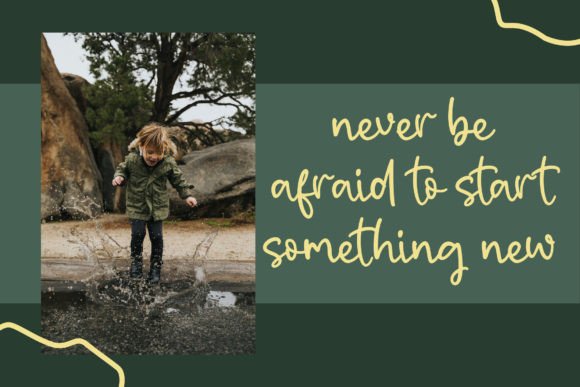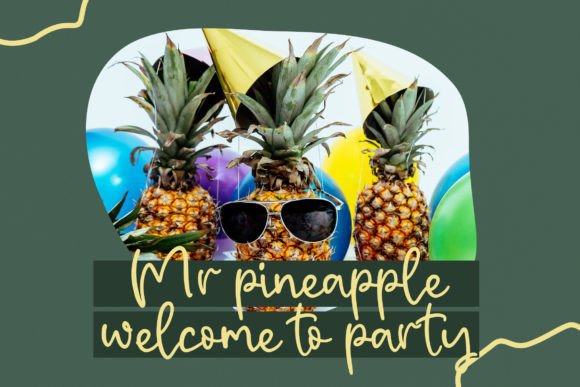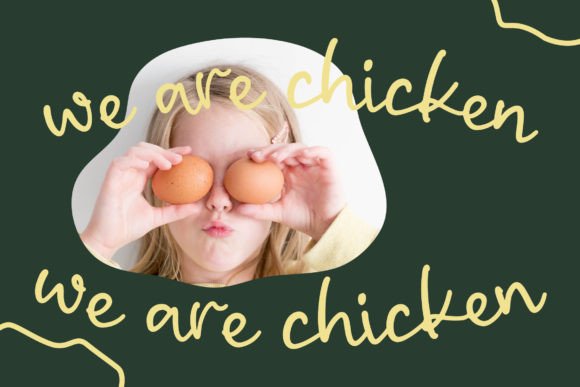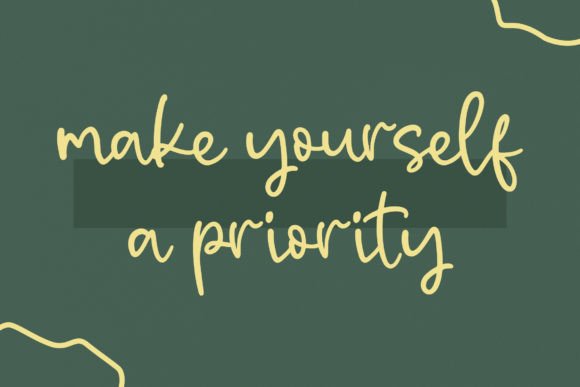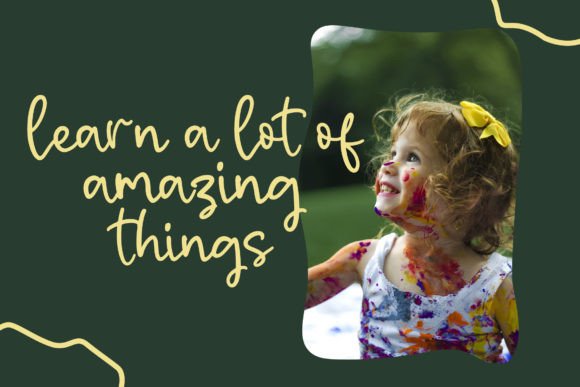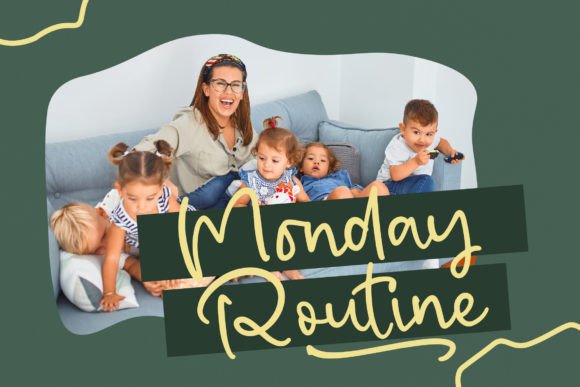
Introducing Disckey Font: The Perfect Handwritten Script for Your Creative Projects
Are you a designer or crafter looking for a beautiful and versatile handwritten font to elevate your projects? Look no further than Disckey Font! This stunning script font is suitable for a wide range of applications, from logos and branding to homeware designs, product packaging, and more.
What is Disckey Font?
Disckey Font is a carefully crafted handwritten script font that exudes elegance and sophistication. Its unique and flowing letterforms make it perfect for adding a personal touch to any project. Whether you’re working on a logo, invitation card, or product packaging, Disckey Font is sure to impress.
Features of Disckey Font
- Handwritten script: Disckey Font features a beautiful, handwritten script that adds a personal touch to any project.
- Versatile: This font is suitable for a wide range of applications, from logos and branding to homeware designs, product packaging, and more.
- Elegant and sophisticated: Disckey Font’s unique and flowing letterforms make it perfect for projects that require a touch of elegance and sophistication.
- Easy to read: Despite its ornate appearance, Disckey Font is easy to read, making it perfect for use in quotes, posters, and other text-based projects.
Use Cases for Disckey Font
Disckey Font is perfect for a wide range of creative projects, including:
- Logos and branding: Create a lasting impression with a custom logo or branding project featuring Disckey Font.
- Homeware designs: Add a touch of elegance to your homeware designs, such as ceramics, textiles, and more.
- Product packaging: Make your product packaging stand out with Disckey Font’s unique and flowing letterforms.
- Mugs and quotes: Create inspiring quotes or fun designs for mugs and other ceramics.
- Posters and shopping bags: Use Disckey Font to create eye-catching posters and shopping bags that showcase your brand’s personality.
- T-shirts and apparel: Create custom apparel featuring Disckey Font’s beautiful script.
- Book covers and name cards: Add a touch of sophistication to your book covers and name cards with Disckey Font.
- Invitation cards and greeting cards: Create beautiful and elegant invitation cards and greeting cards featuring Disckey Font.
- Labels and photography: Use Disckey Font to create custom labels and watermarks for your photography projects.
Why Choose Disckey Font?
With so many fonts to choose from, why should you choose Disckey Font for your creative projects? Here are just a few reasons:
- Unique and distinctive: Disckey Font’s unique and flowing letterforms make it stand out from more traditional fonts.
- Elegant and sophisticated: This font exudes elegance and sophistication, making it perfect for projects that require a touch of refinement.
- Versatile: Disckey Font is suitable for a wide range of applications, making it a great addition to any designer’s toolkit.
In conclusion, Disckey Font is a beautiful and versatile handwritten script font that is perfect for a wide range of creative projects. Its unique and flowing letterforms make it stand out from more traditional fonts, while its elegance and sophistication make it perfect for projects that require a touch of refinement. Whether you’re a designer or crafter, Disckey Font is a great addition to your toolkit.